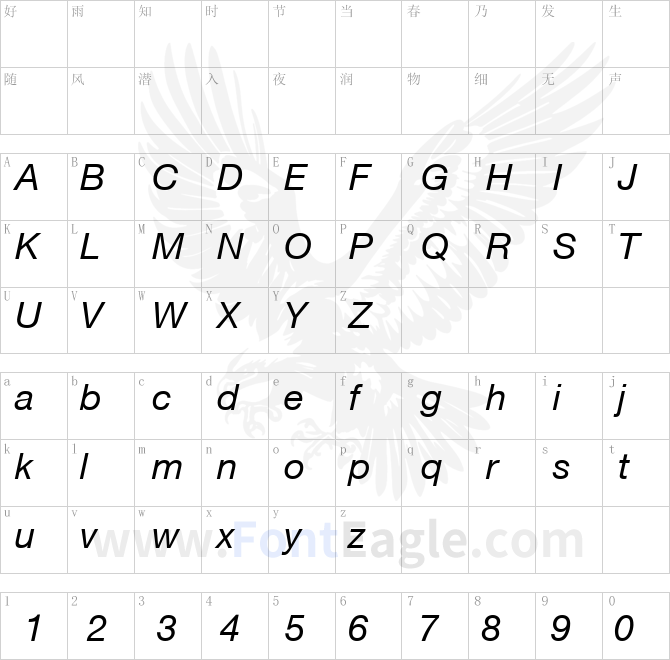
- Font name:Helvetica CE 55 Roman
- Font Full Name:Helvetica Neue CE 56 Italic
Helvetica-Neue-CE-56-Italic is a great font, widely used in graphic design, single-page menu design, poster design and other fields, and is deeply loved by designers.Helvetica-Neue-CE-56-Italic download.